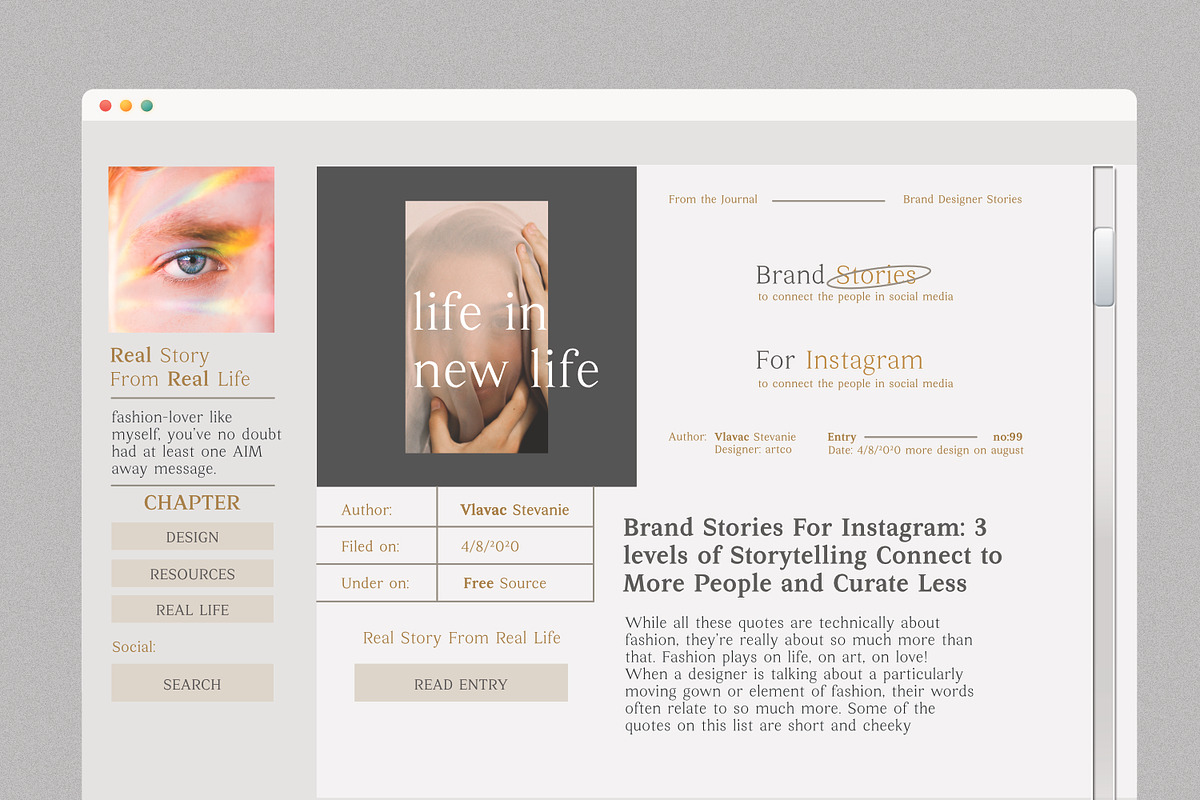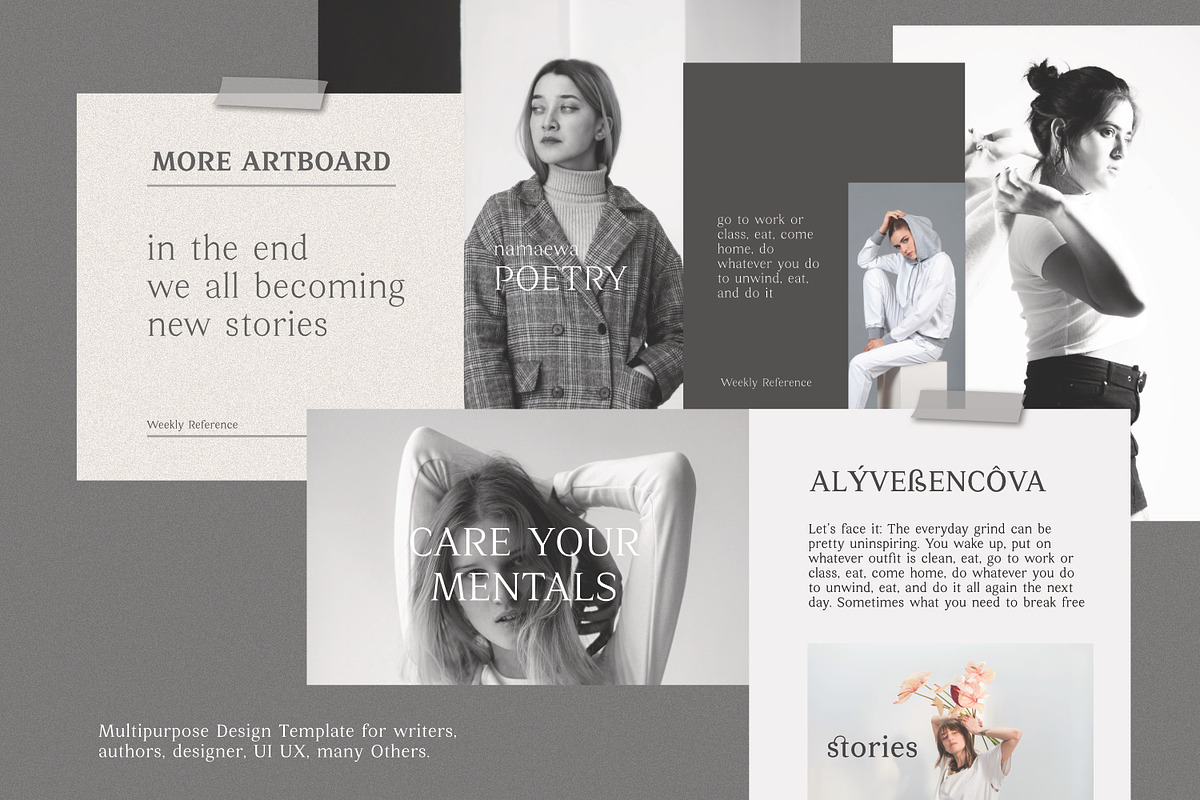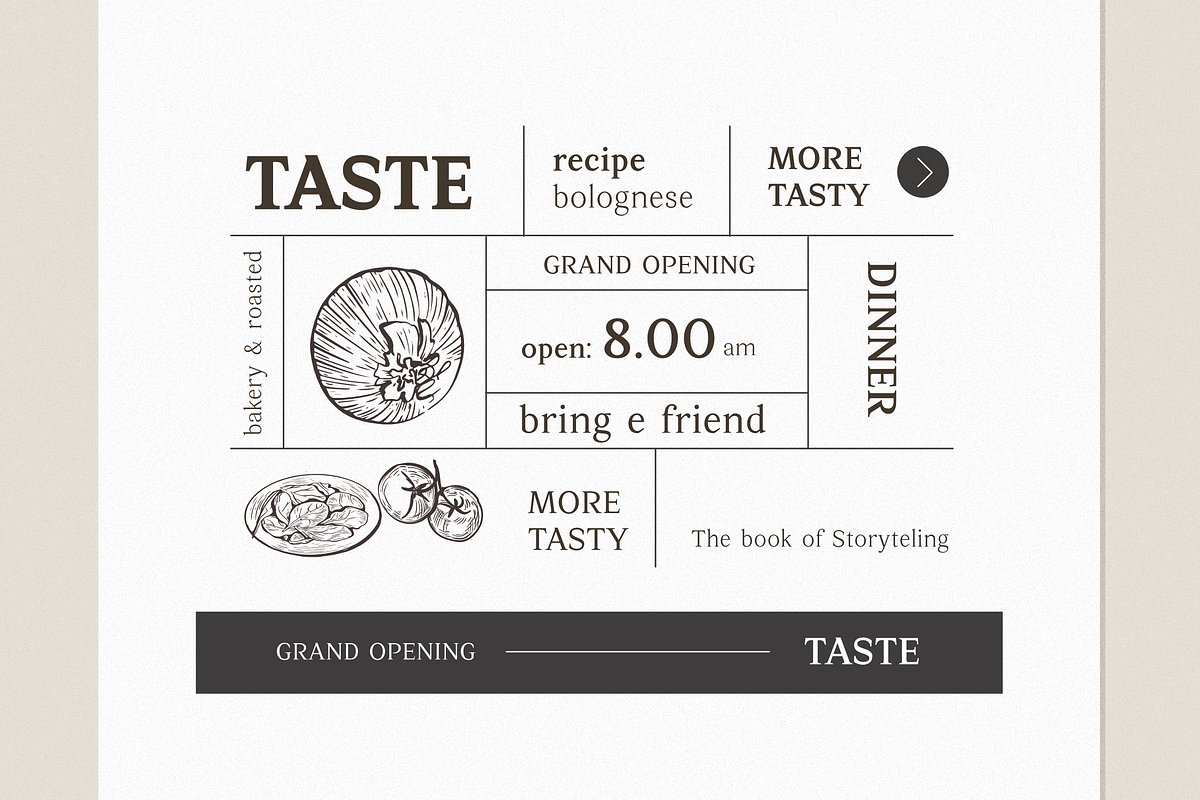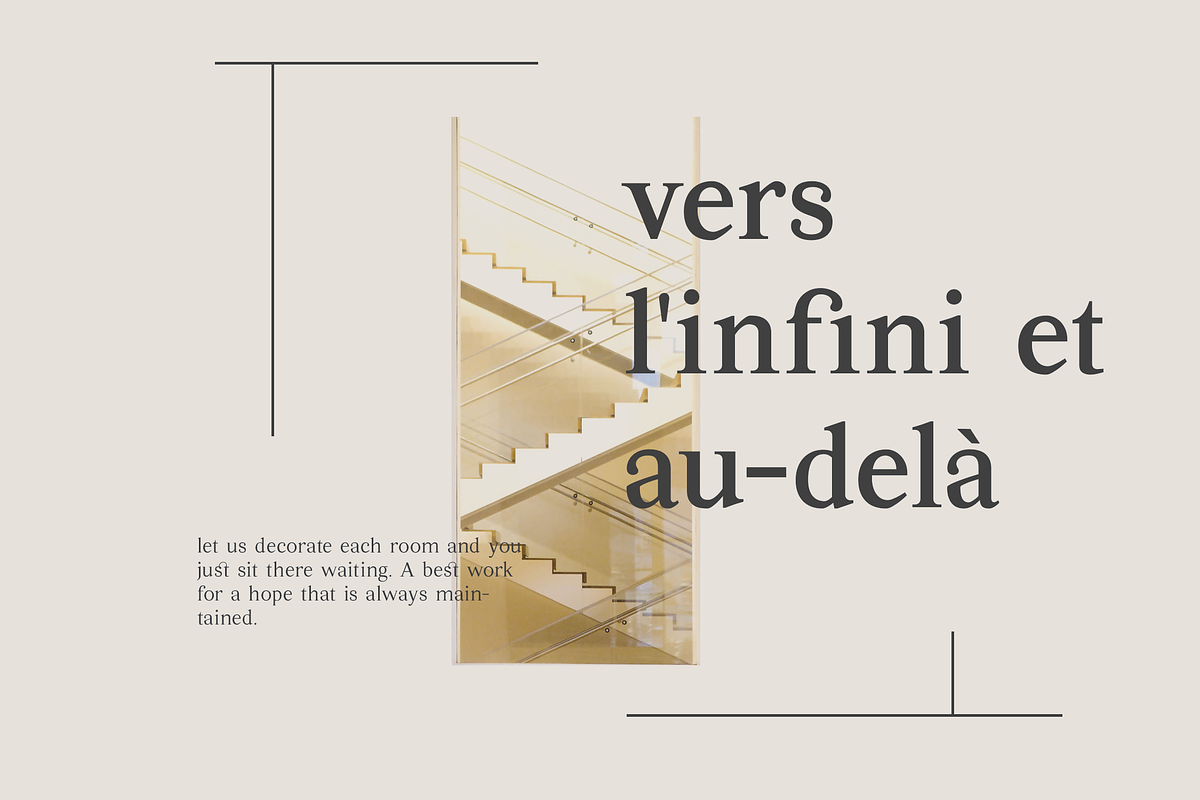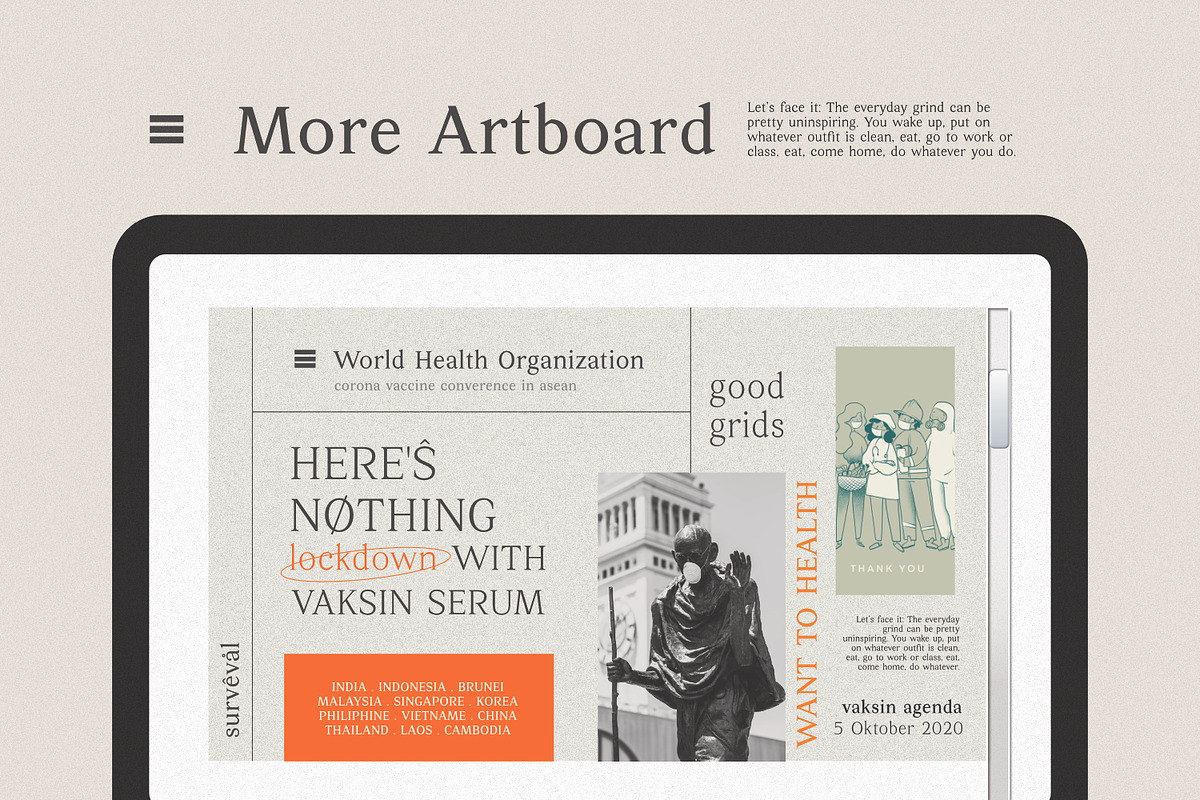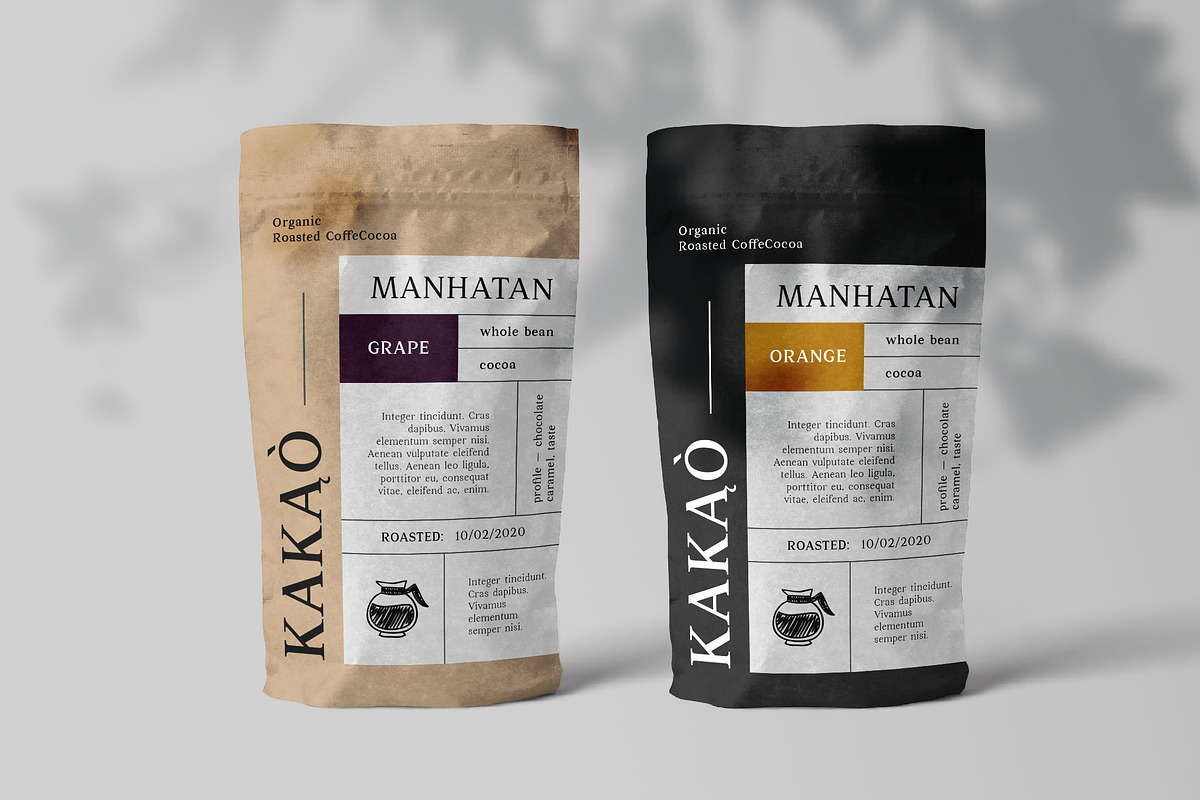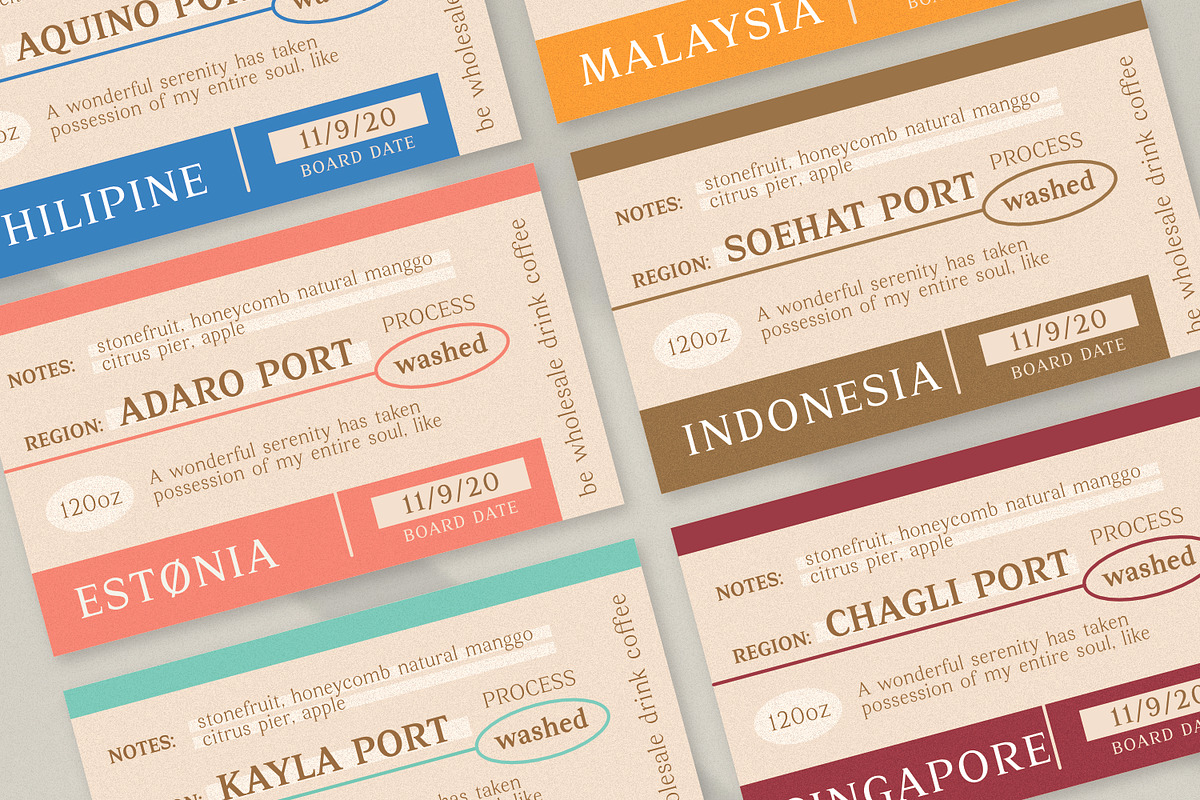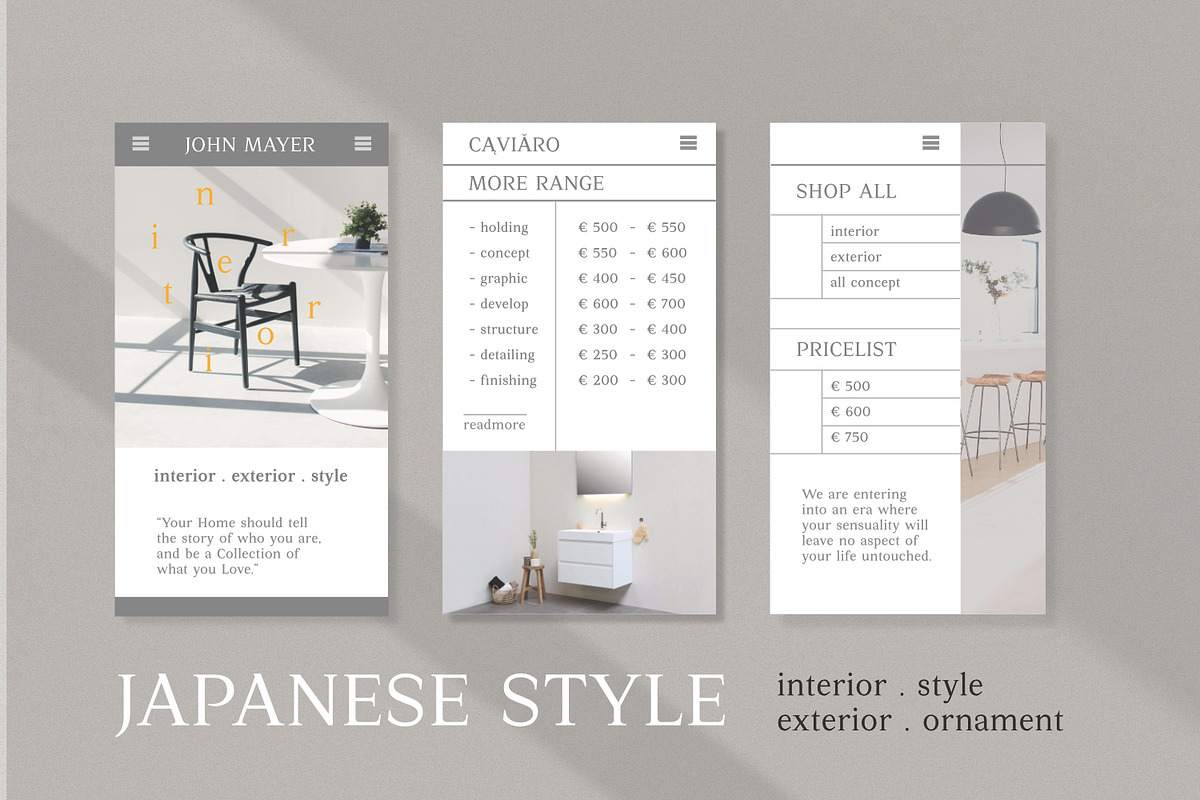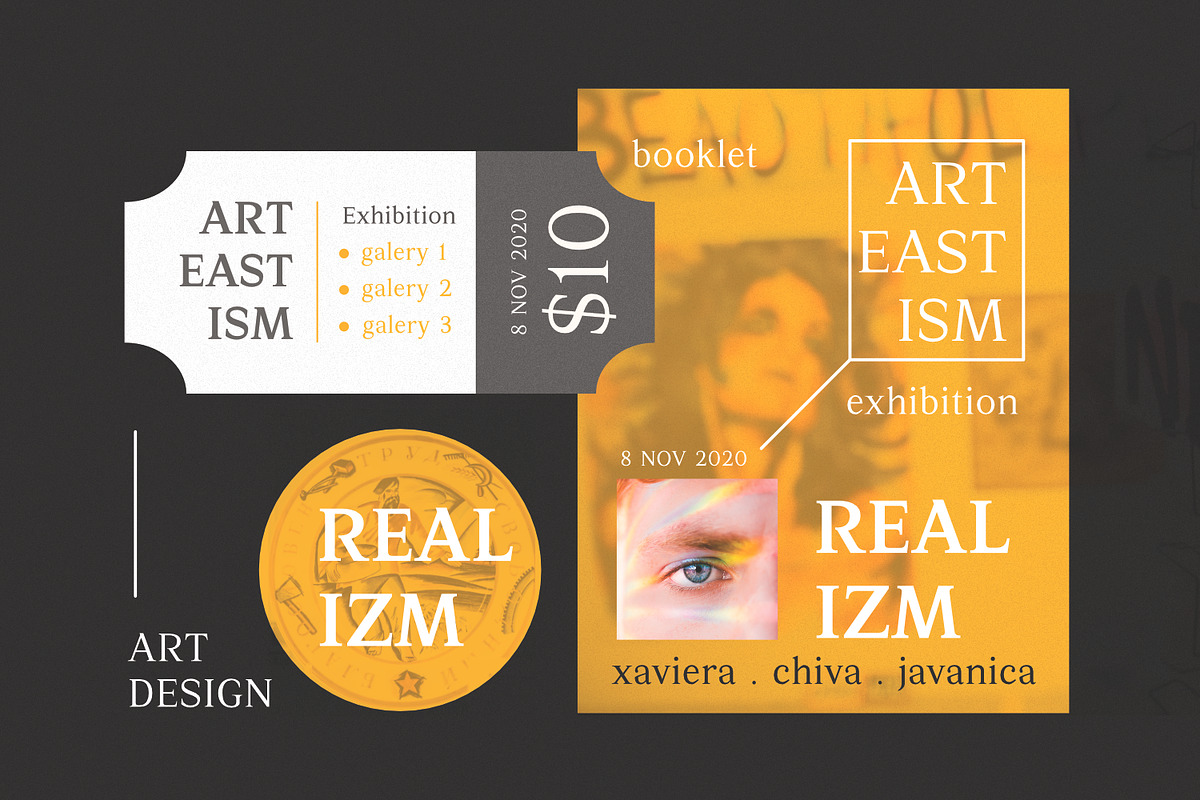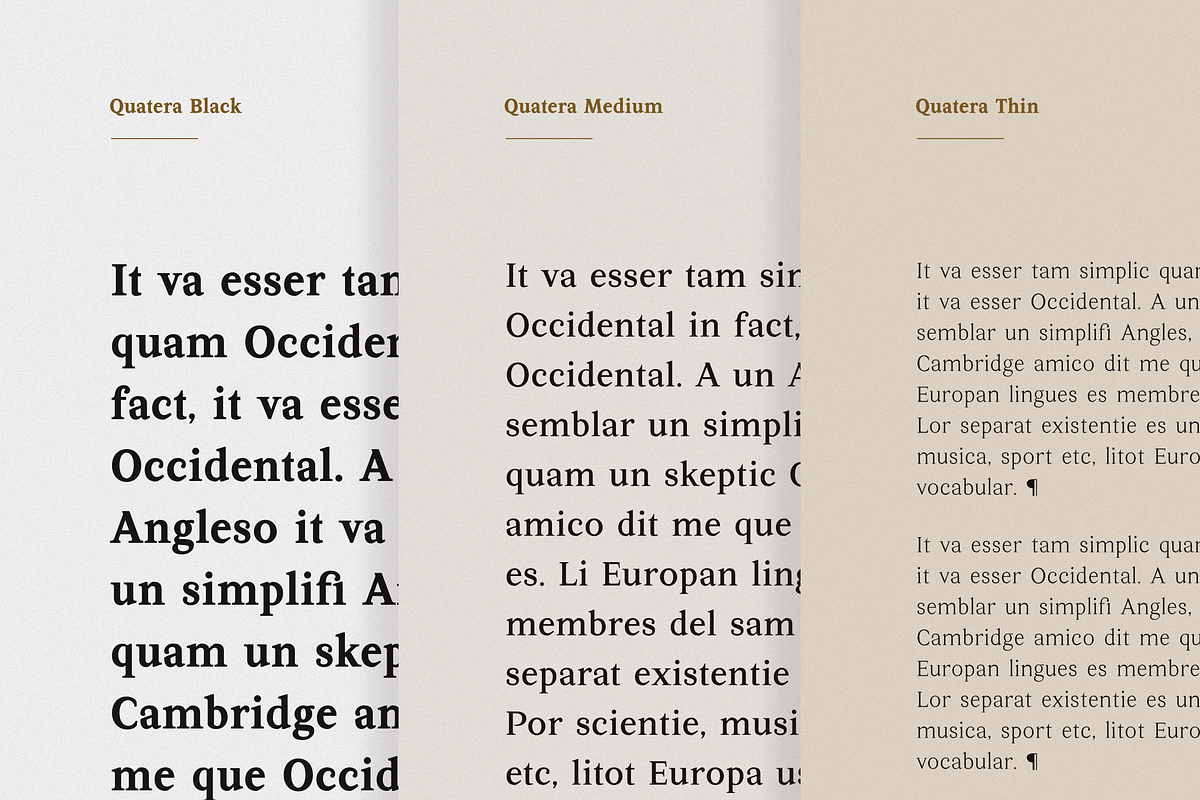
Quatera Serif Family (9 Weights)
Quatera is an old style serif family with 9 weight styles from thin to black.
Quatera Serif font is perfect for your up coming projects. Such as logo branding, editorial design, stationery design, blog design, modern advertising design, card invitation, magazine, company profile, art quote, home decor, book/cover title, special events and any more.